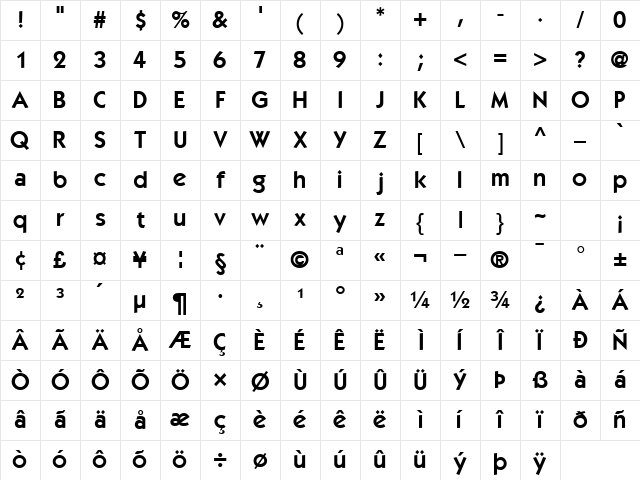
PerformaBookSSK SemiBold
Style: SemiBold
Complete PerformaBookSSK SemiBold glyph index. Displaying only characters natively supported by PerformaBookSSK SemiBold font.
Design Context for PerformaBookSSK
PerformaBookSSK is a composed and adaptable typeface that performs quietly and consistently across a wide range of design contexts. Its bold stroke weight gives it real presence on the page.